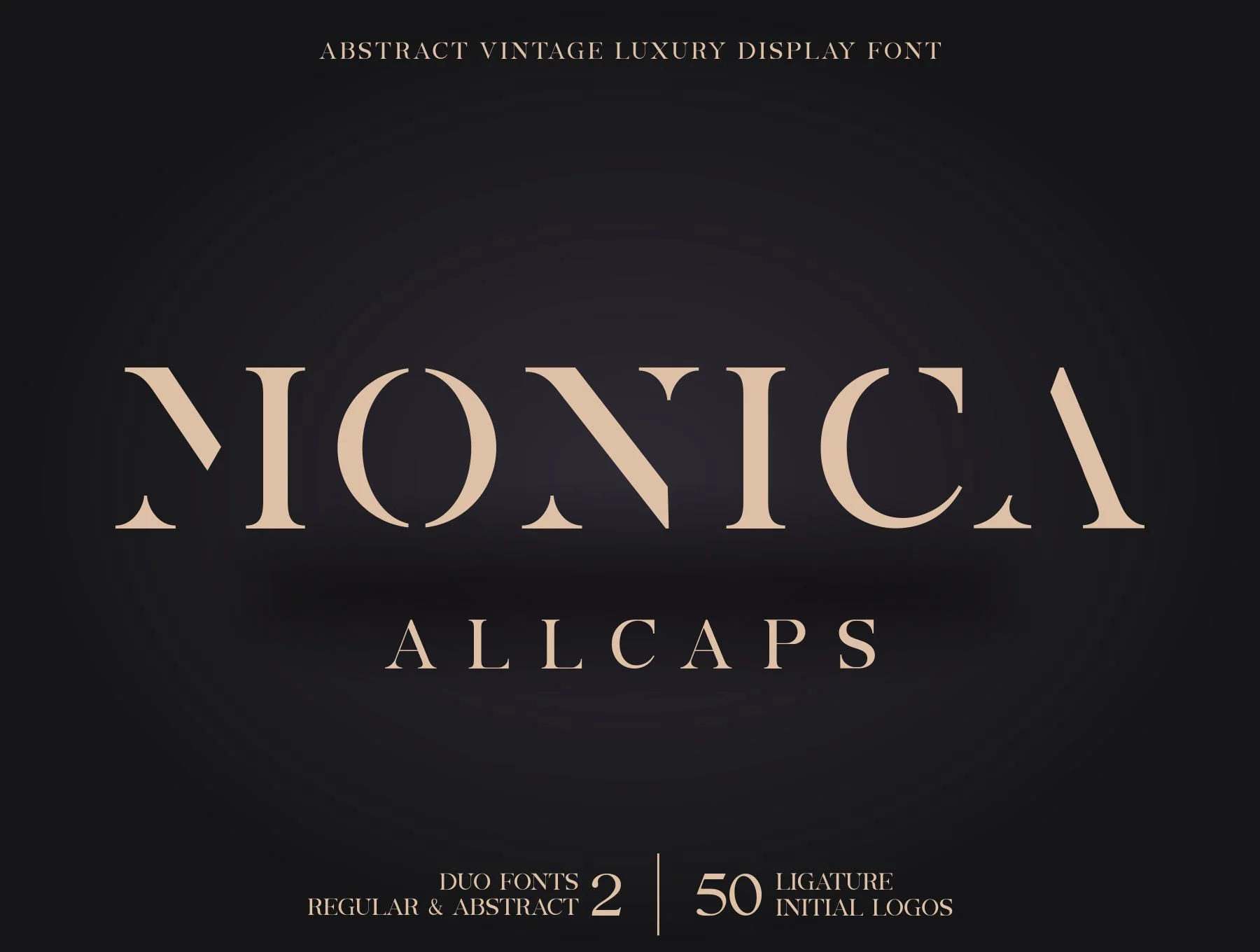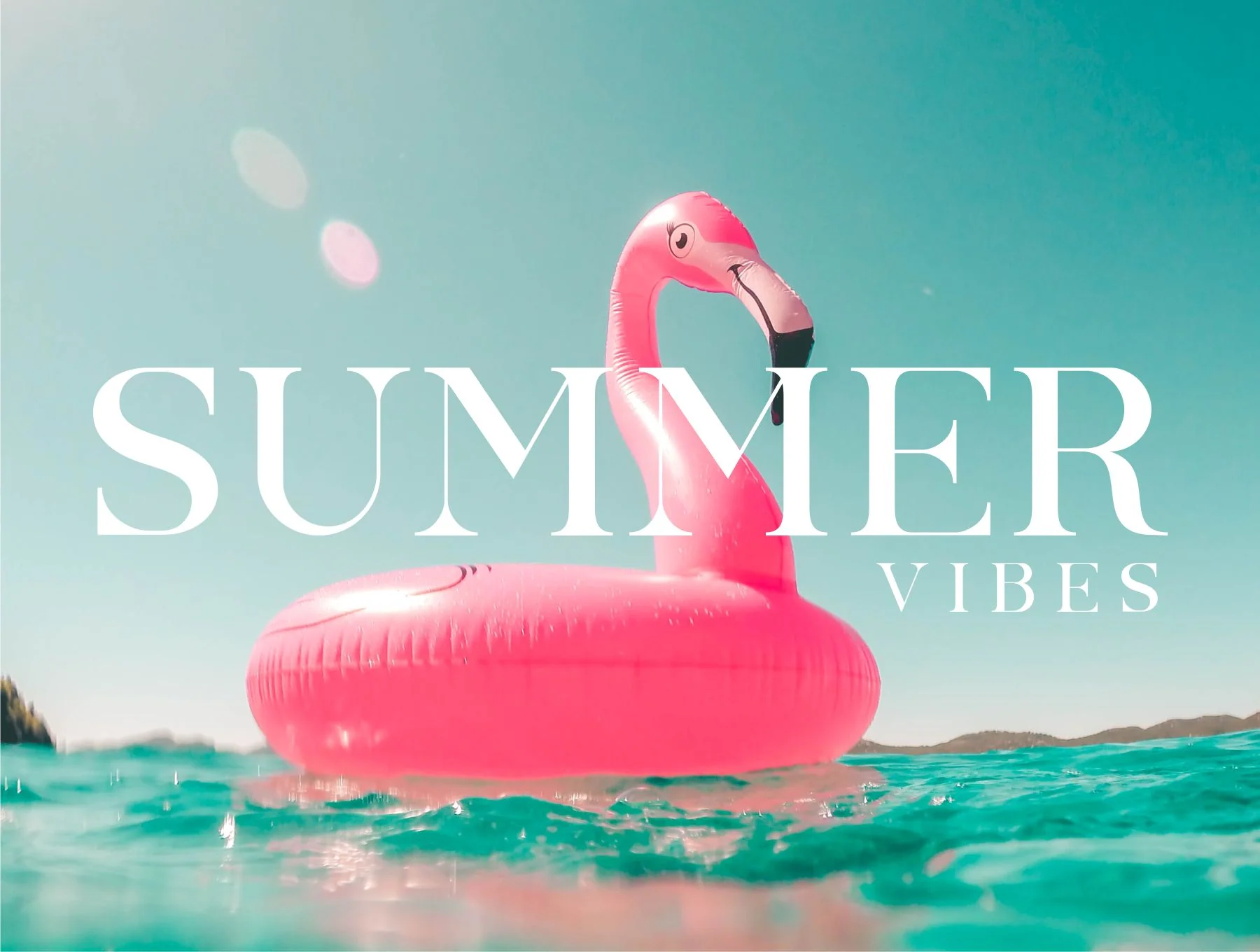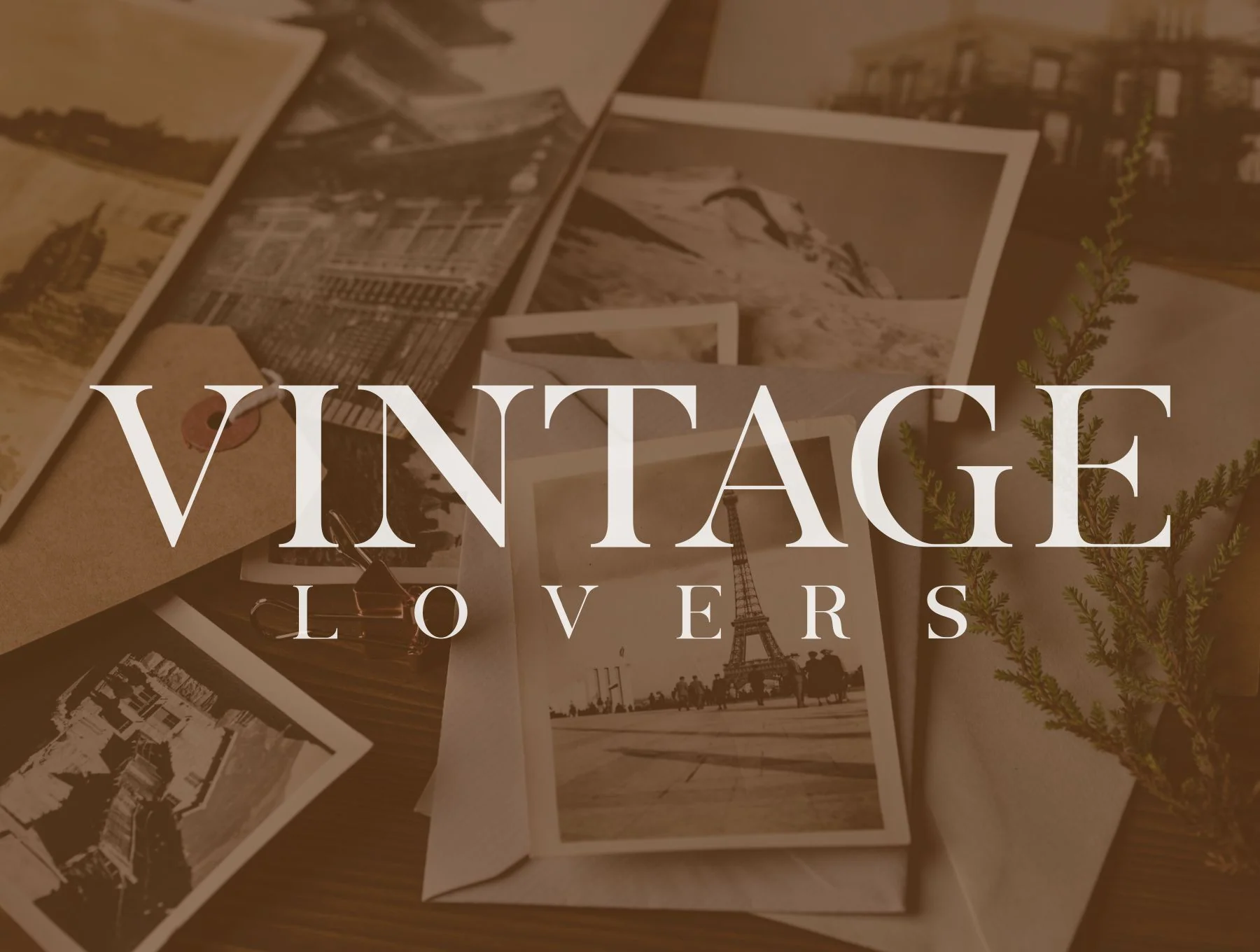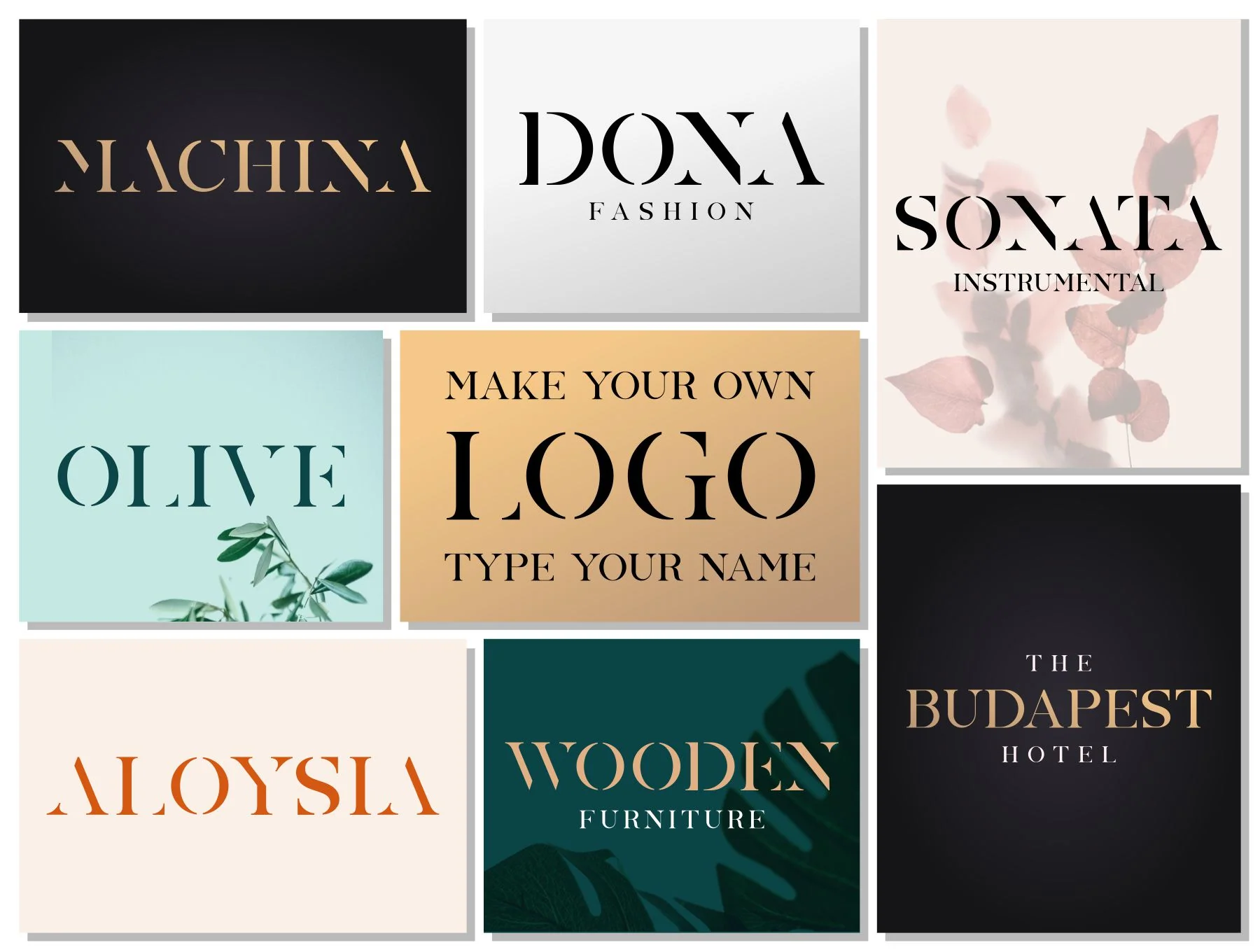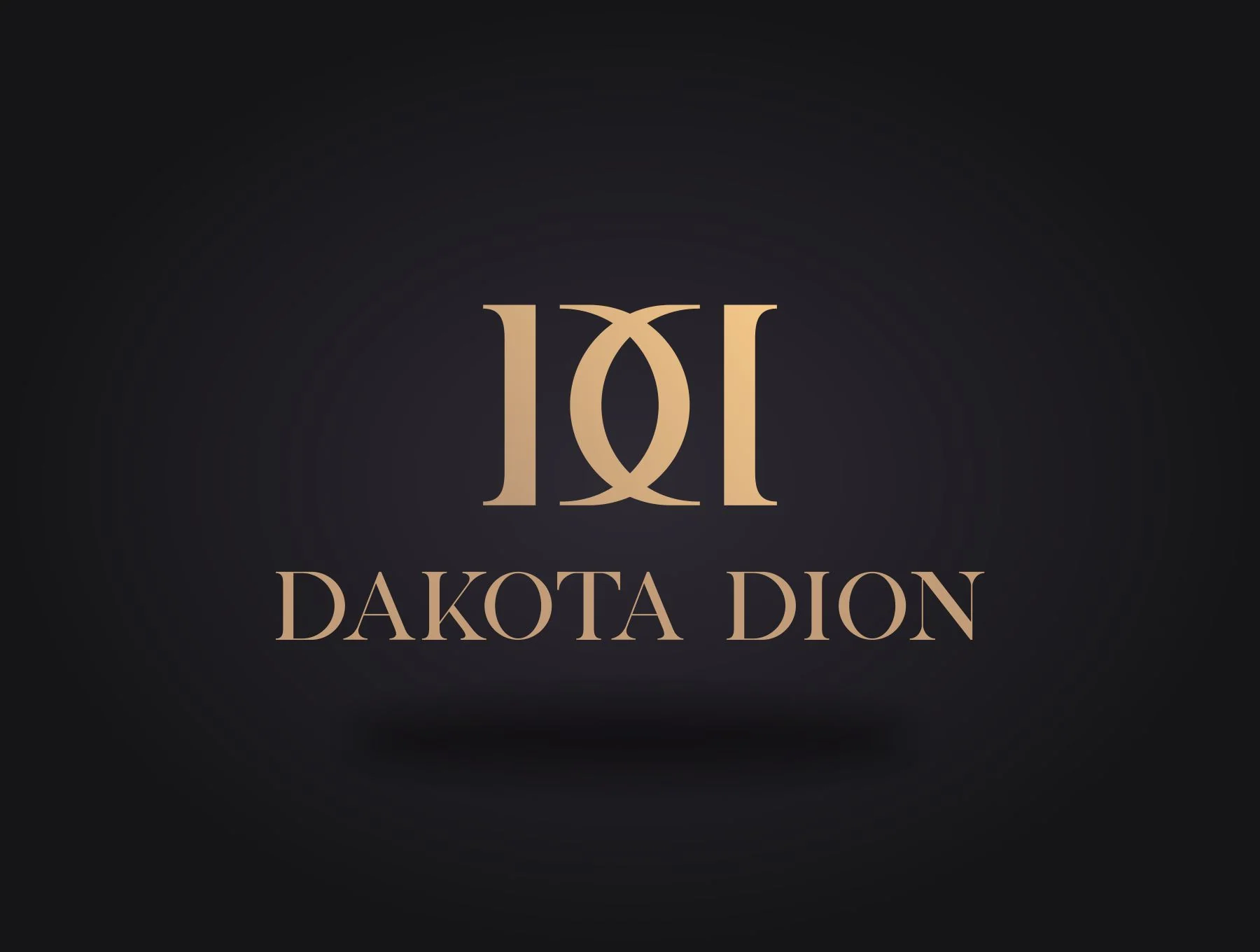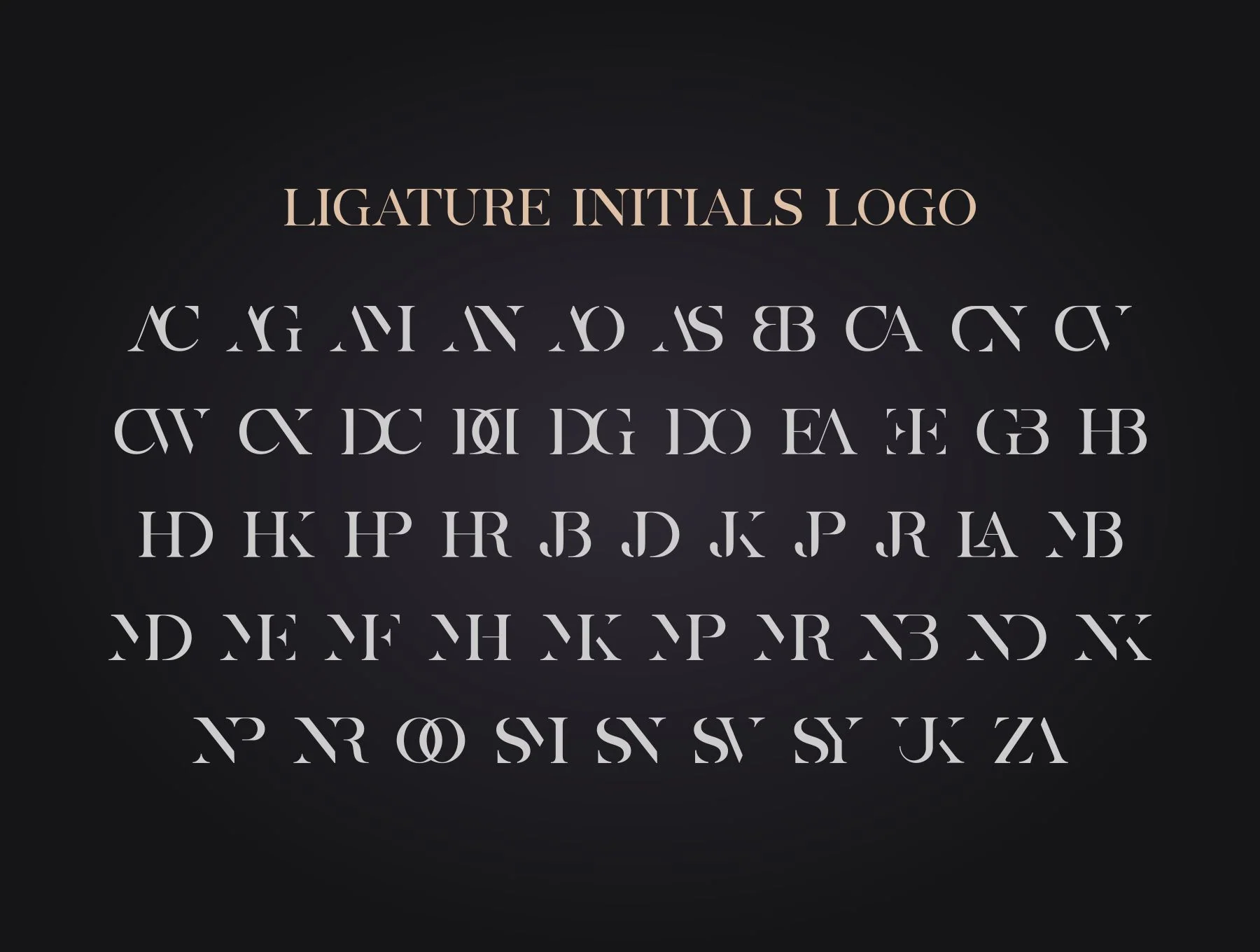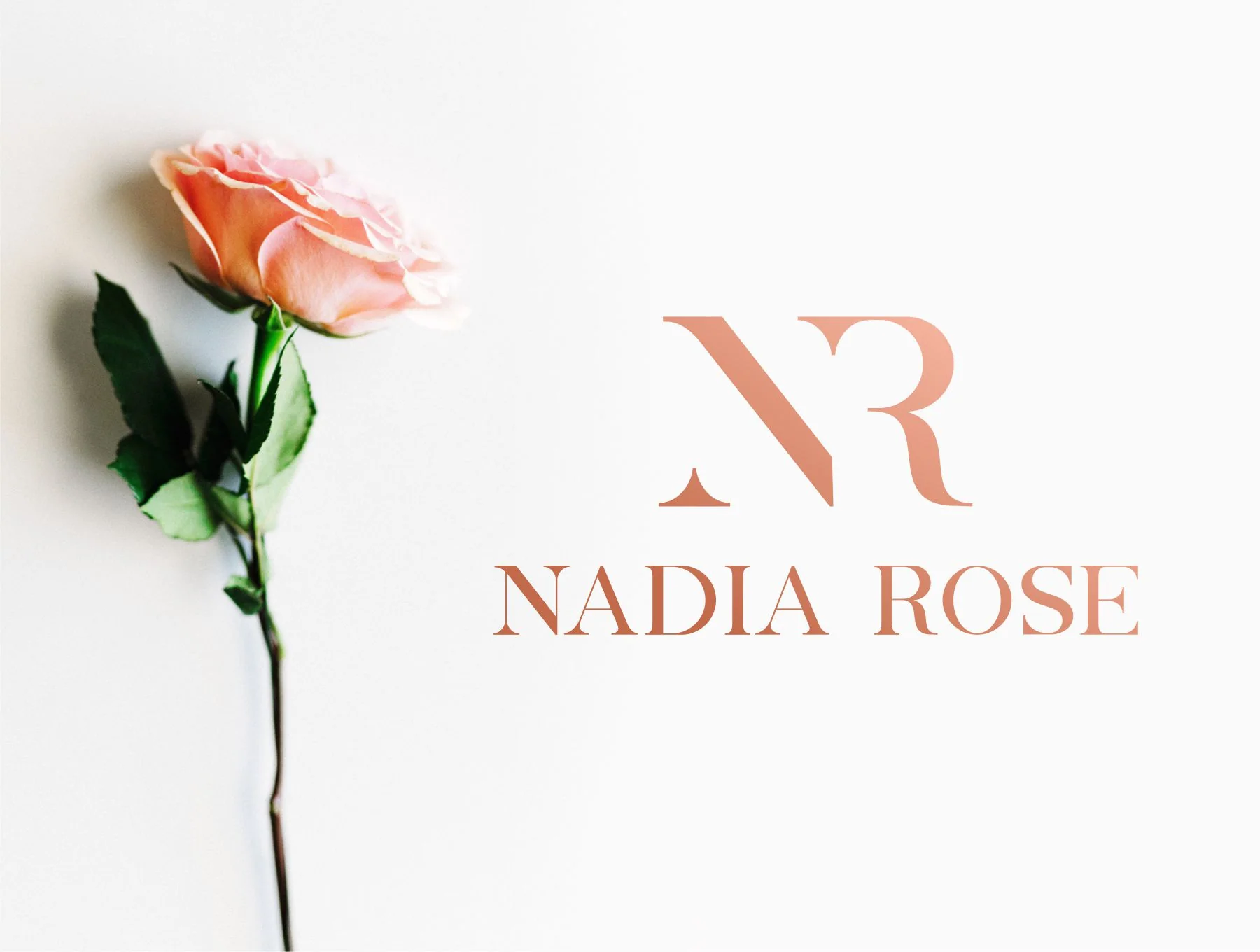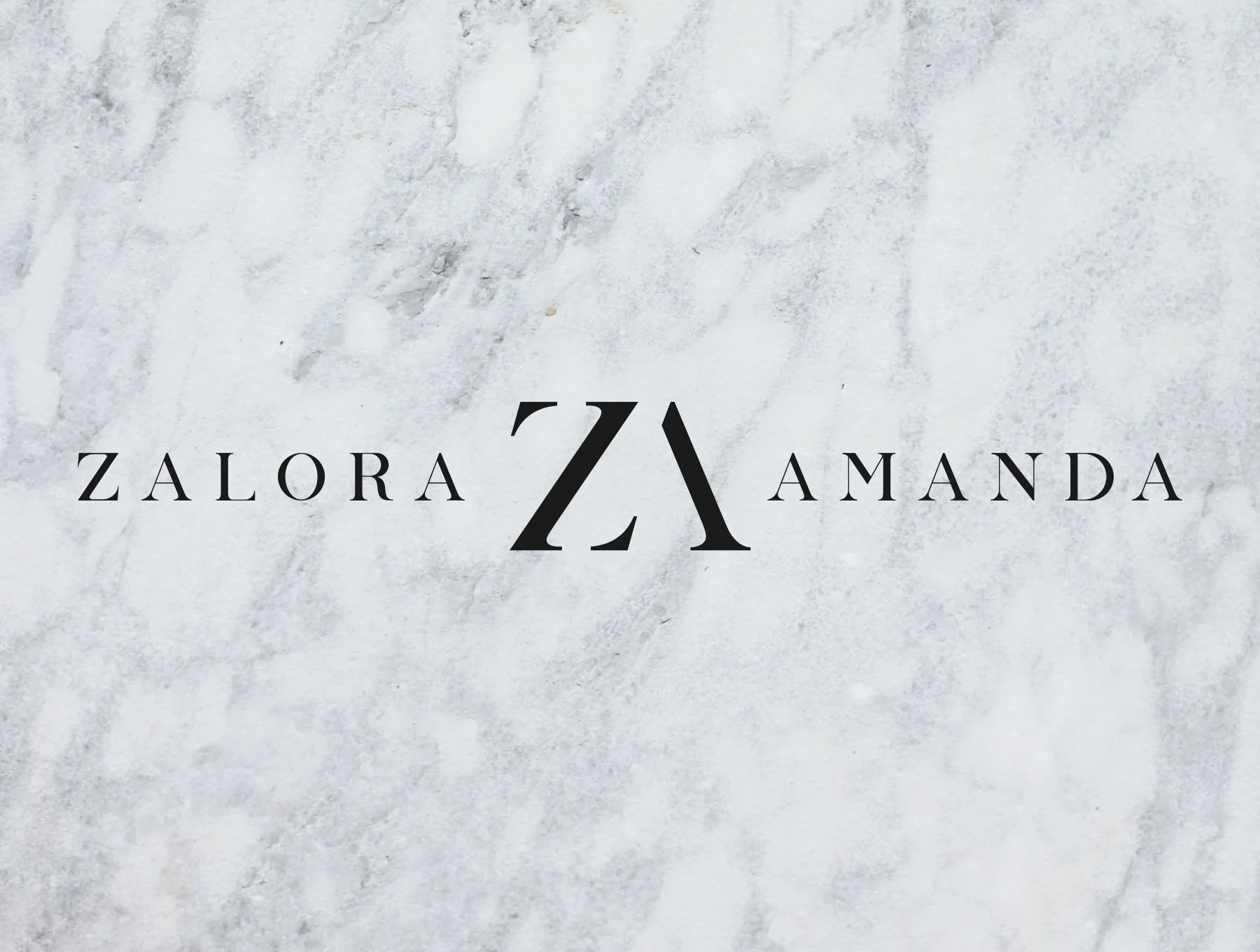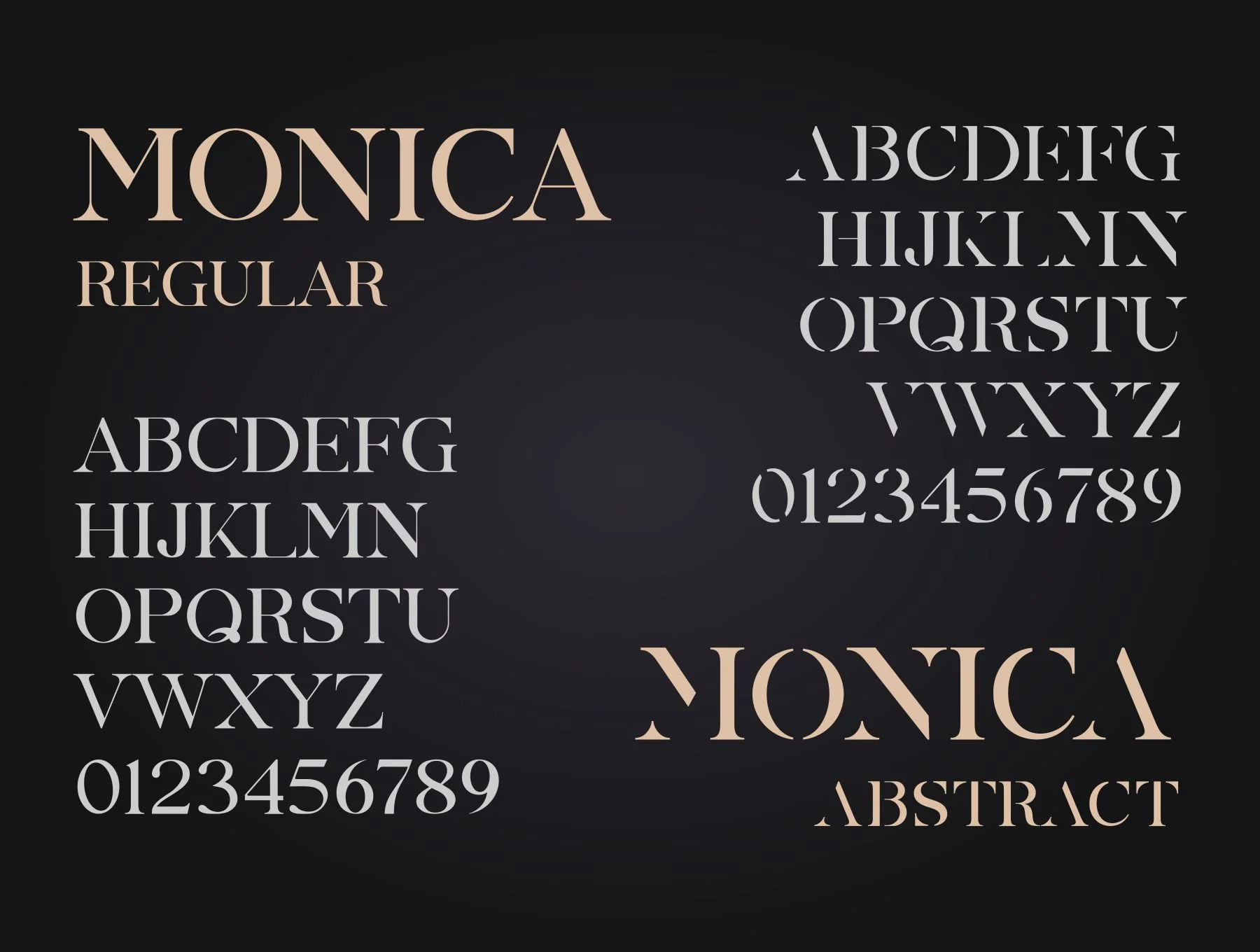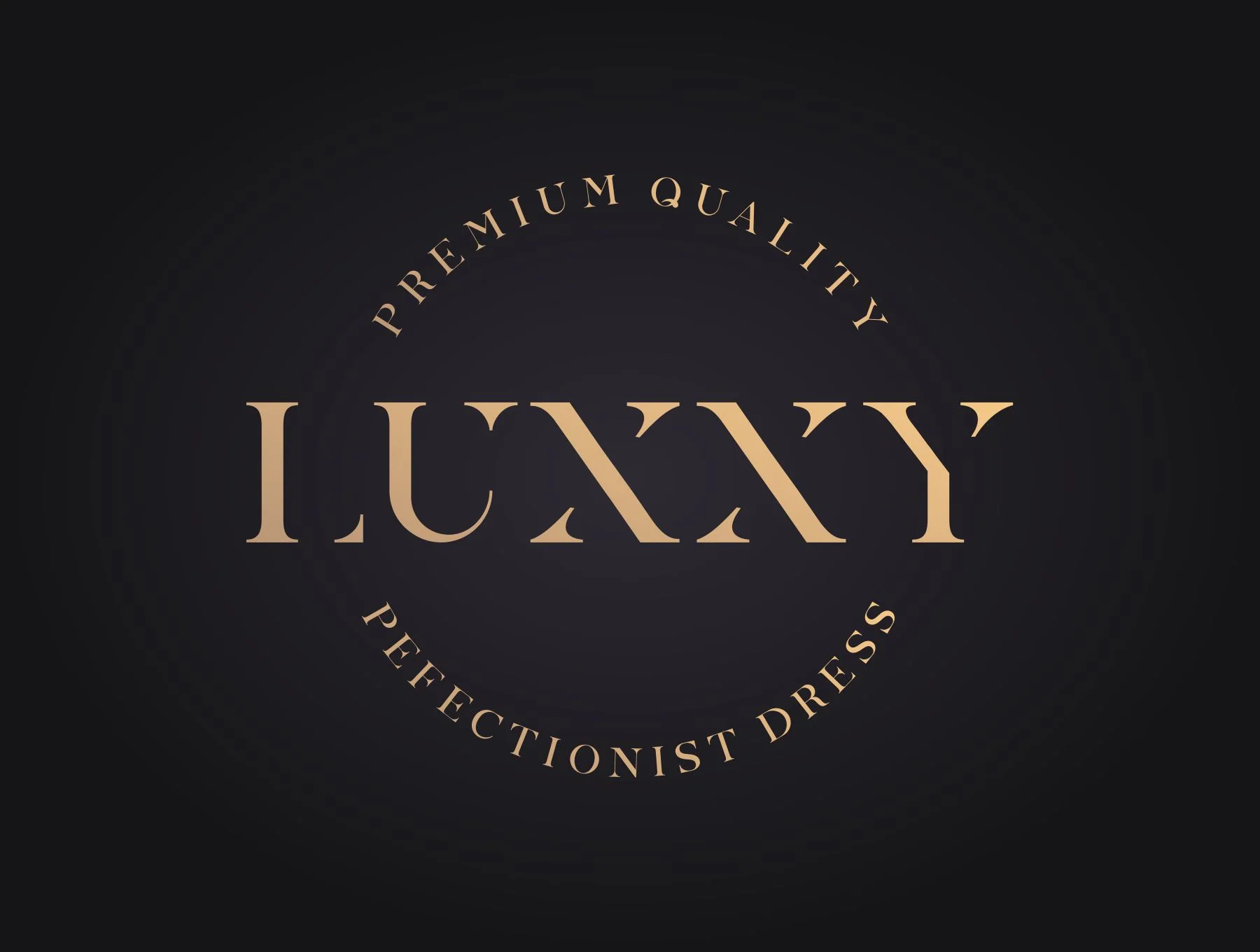
Monica Allcaps Fonts Family
Abstract Retro Luxury Display Typeface
Basic Glyph Set
Numbers and Marks
Decorative Ligature Styles
Support for Various Languages
Monica Allcaps is a refined retro display typeface with vintage, classic, chic, and stencil-inspired character. It includes two styles: Regular and Abstract stencil. Ideal for logos, posters, headlines, fashion designs, and more, this all-caps font offers ligatures for initials, plus OpenType features, kerning, numerals, punctuation, and multilingual support.